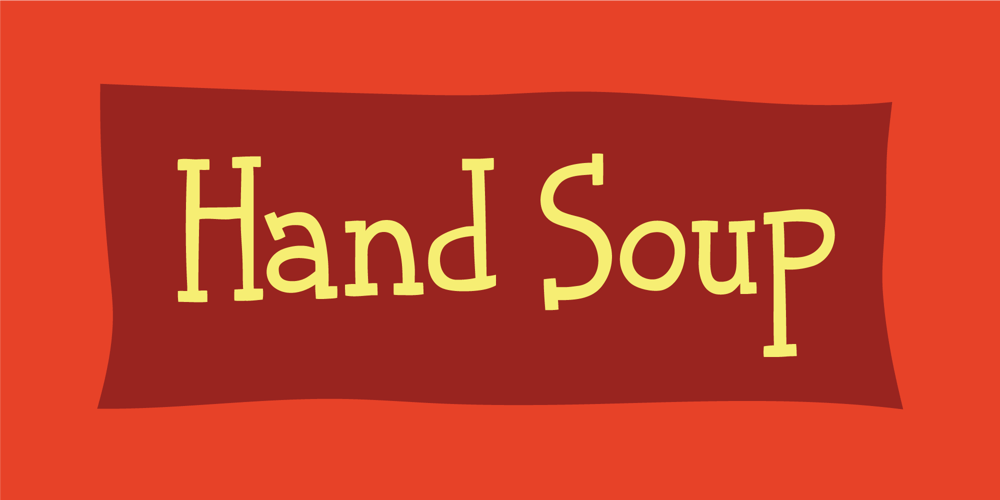
Hand Soup Font Family was designed by Jakob Fischer and published by PizzaDude.dk. Hand Soup contains 2 styles and family package options. Hand Soup is obviously a wordplay. It’s funny how a word changes the meaning, just by replacing a simple letter!But Hand Soup not just a wordplay, it’s a serif play as well! How?! Well, just look at the bouncy, handmade letters – it’s legible, but at the same time it looks like an invitation to something active and fun!